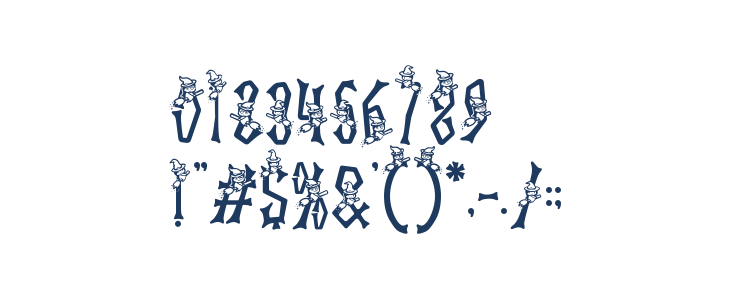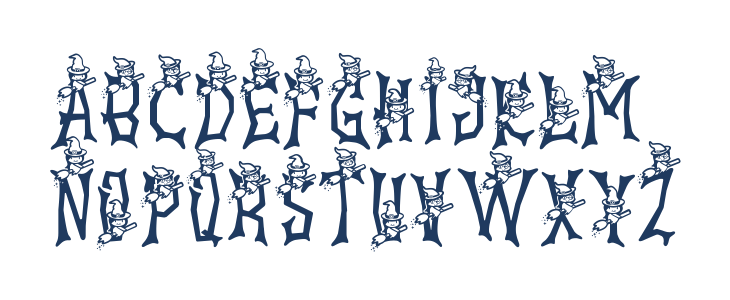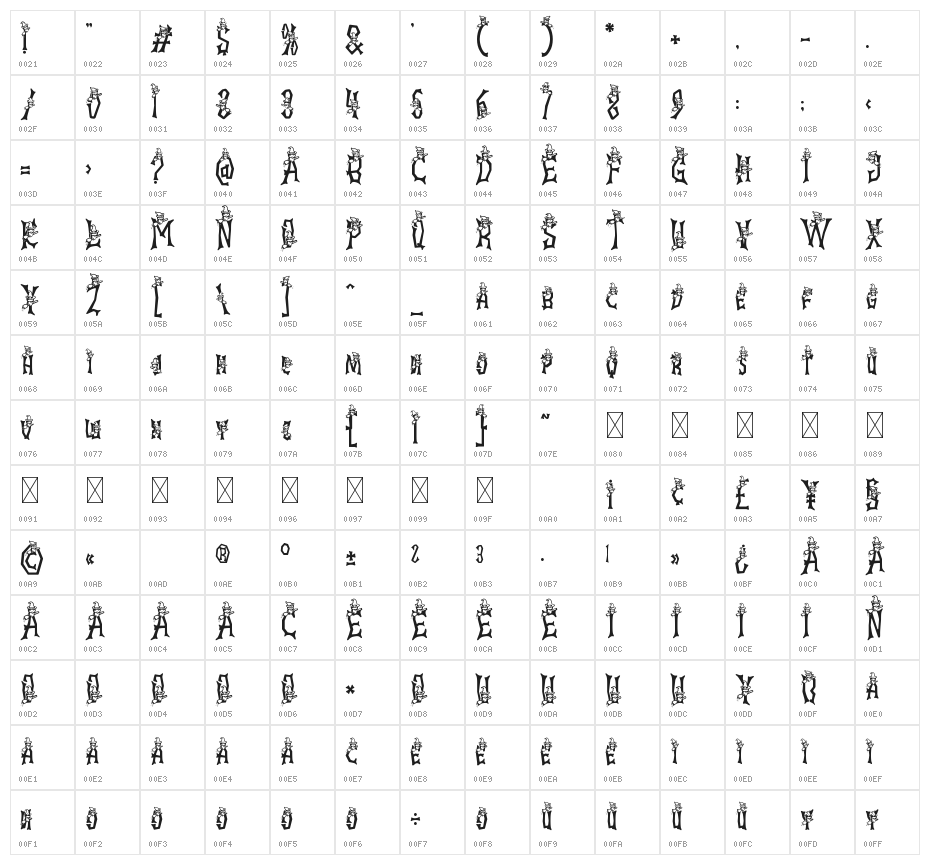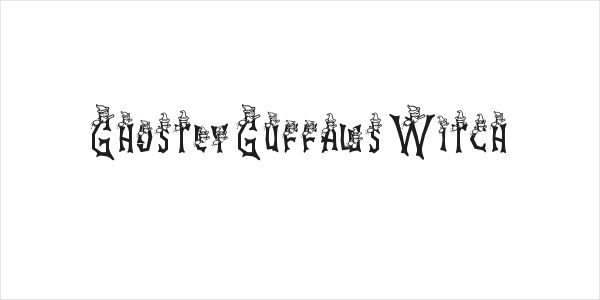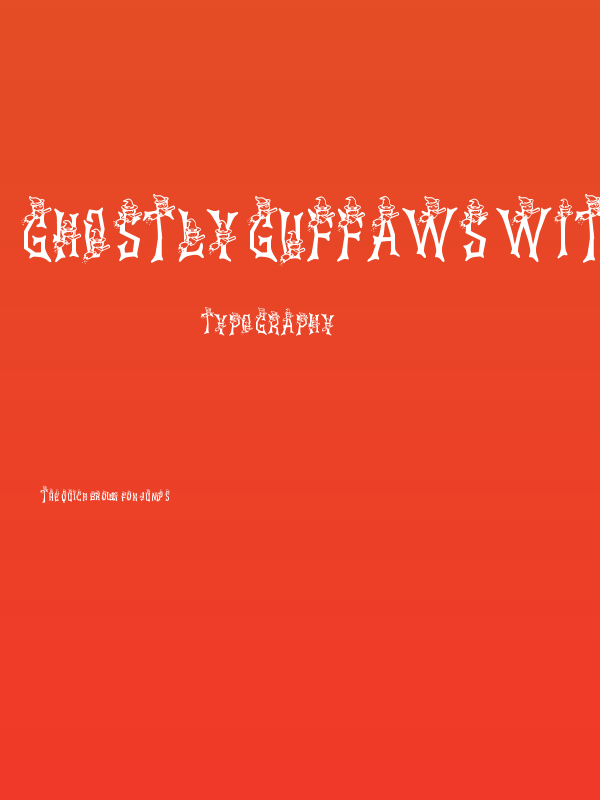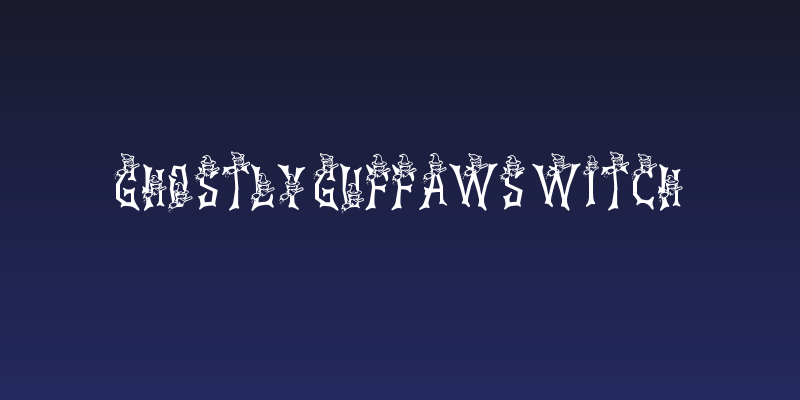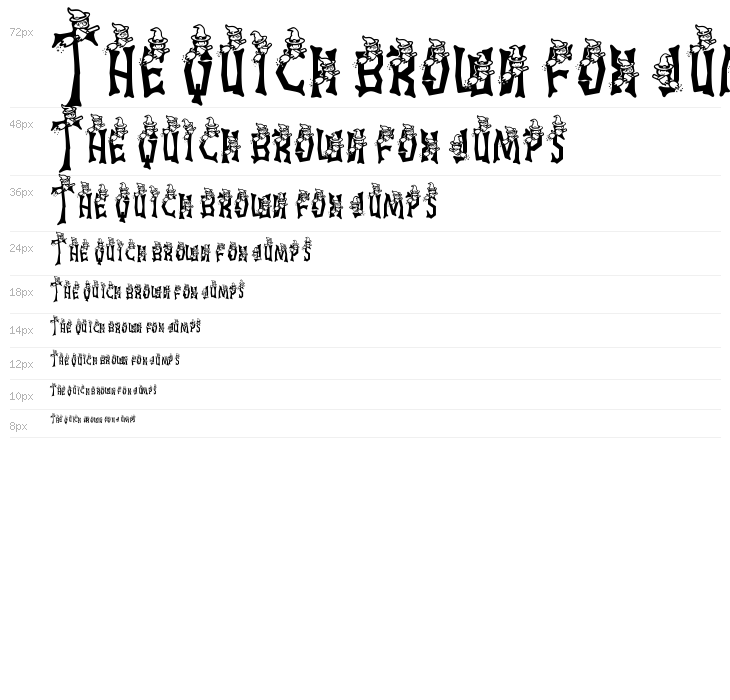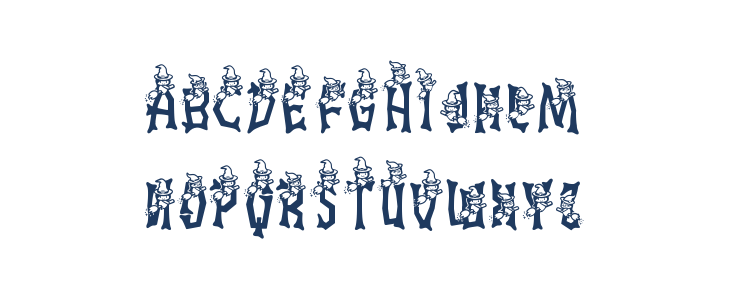
Ghostly Guffaws Witch Font
Ghostly Guffaws Witch Description
A decorative display font featuring playful, cartoonish witch illustrations integrated into each character, with irregular, jagged letterforms that evoke a spooky and whimsical Halloween theme.
| Overall Style | Decorative, Whimsical, Spooky |
| Use Case | Headlines, Posters, Themed Graphics |
| Proposed Projects | Halloween party invitations, themed posters, children's event flyers, spooky greeting cards, seasonal branding. |